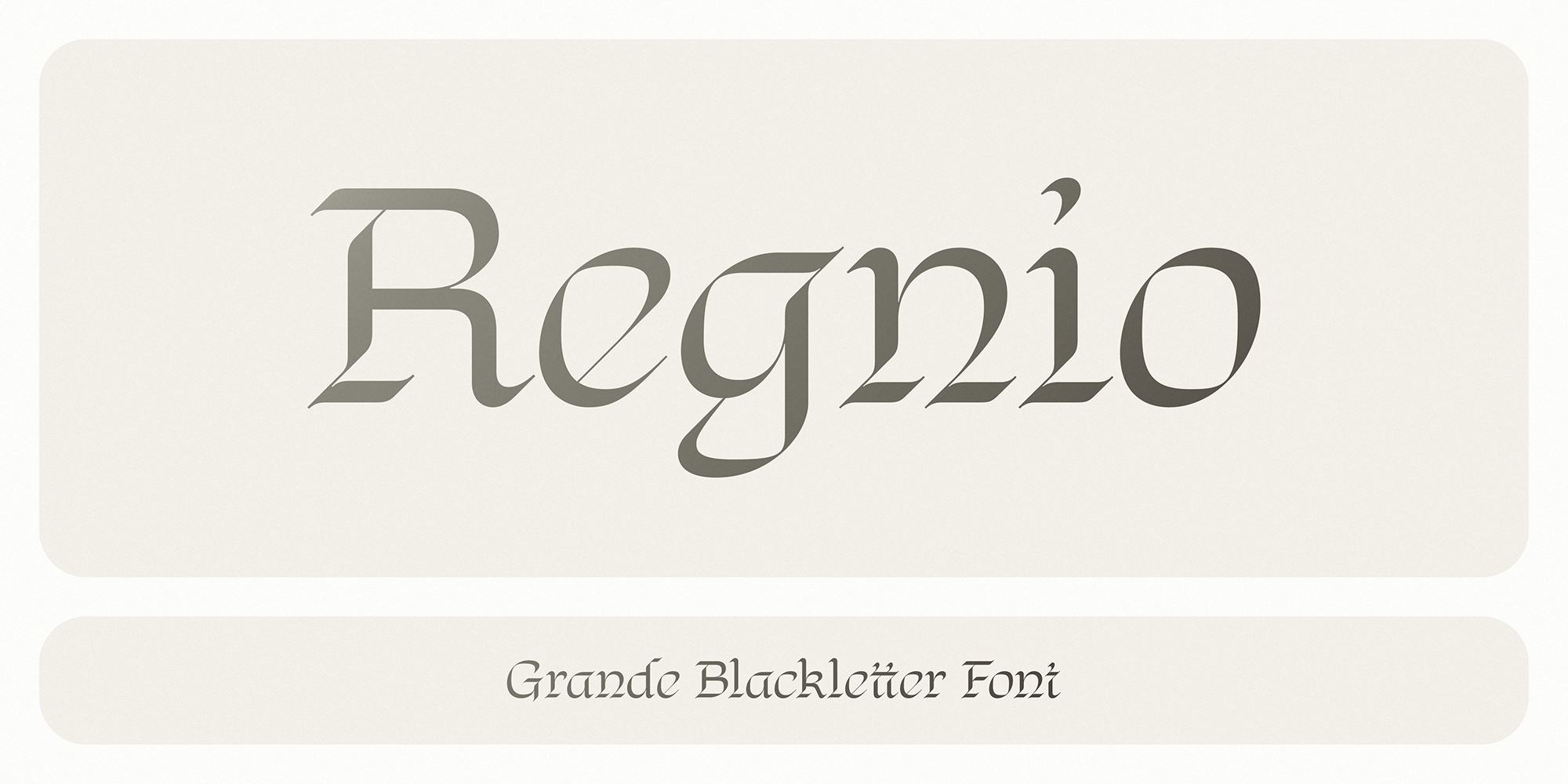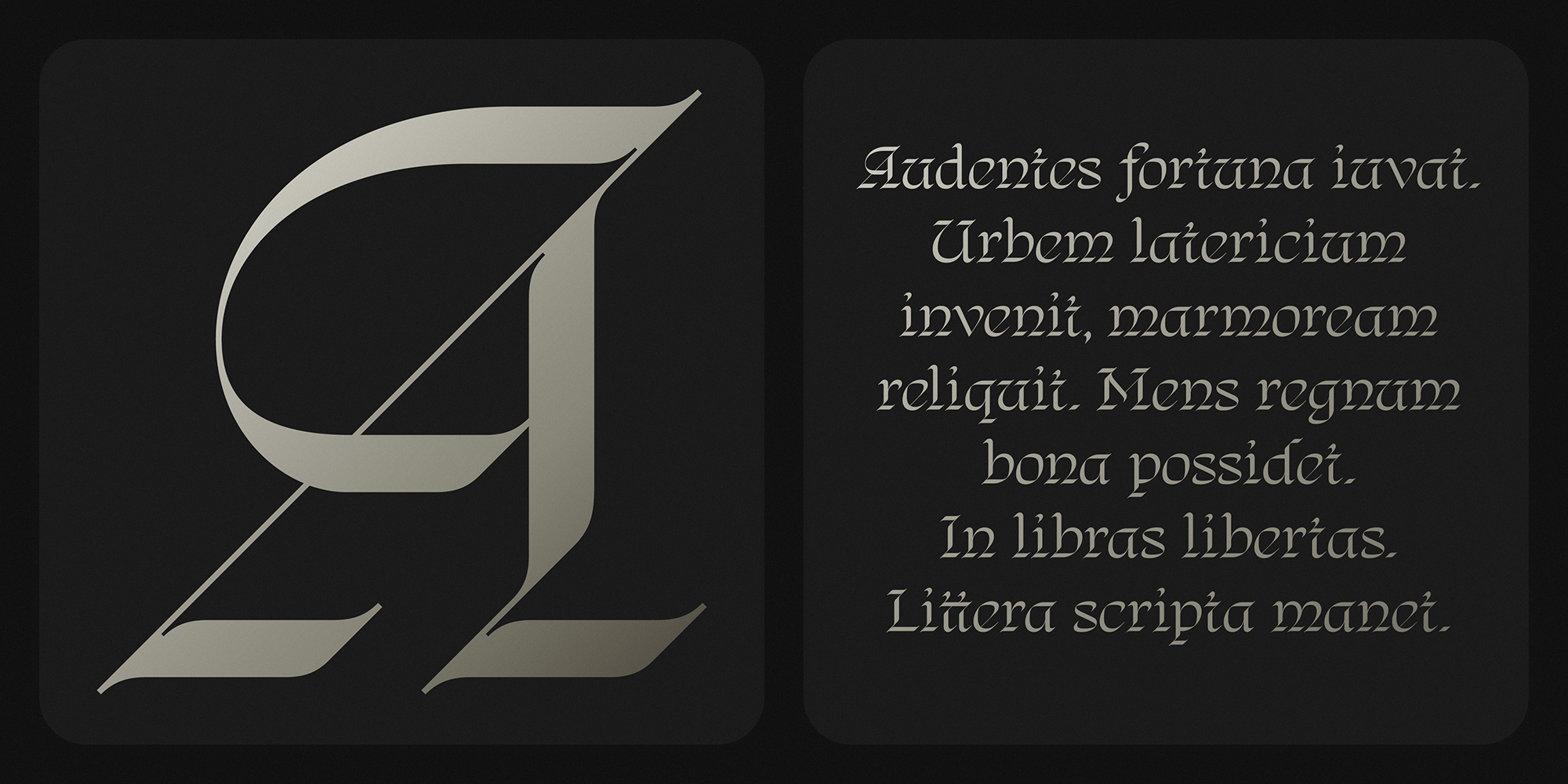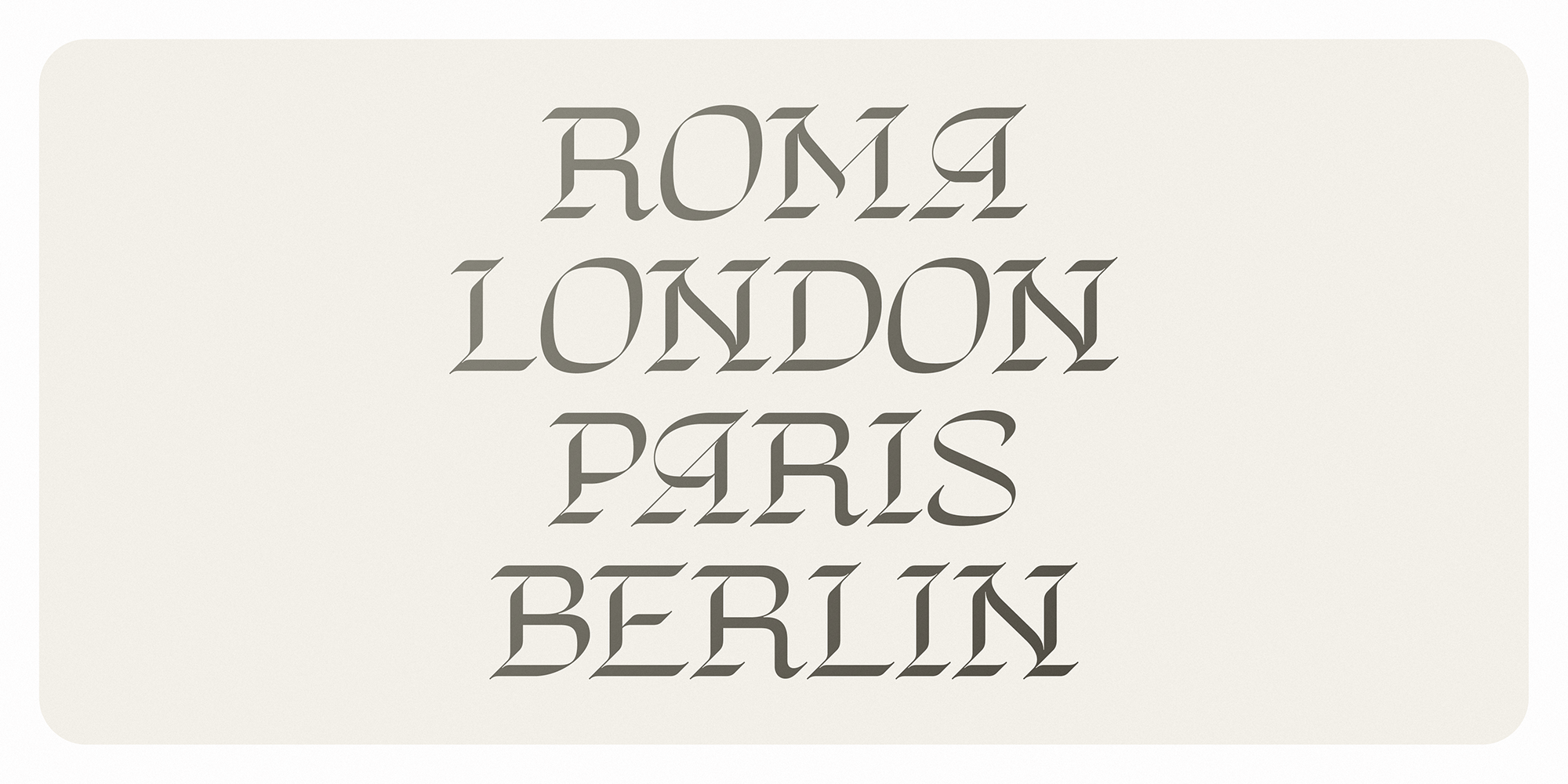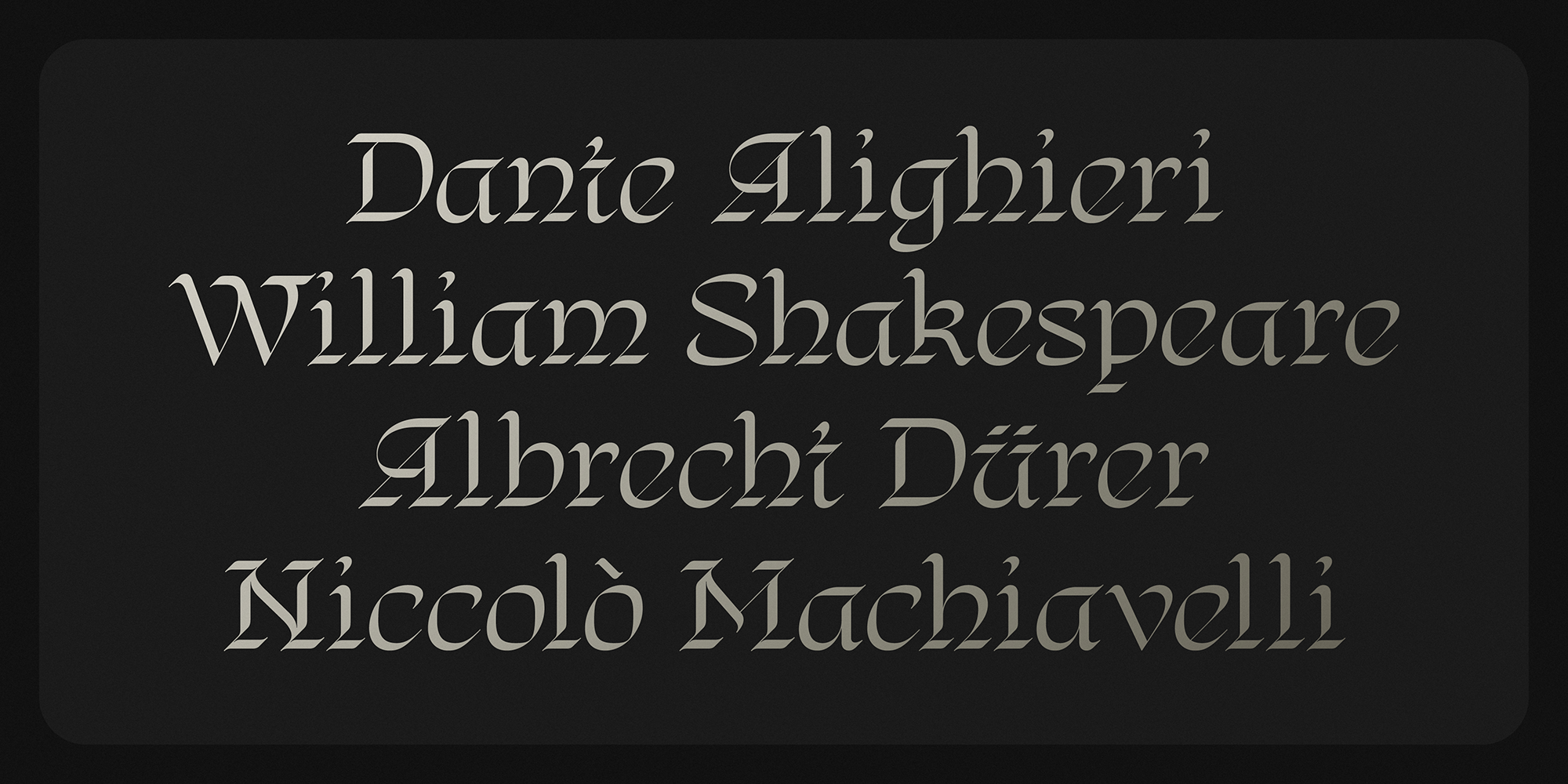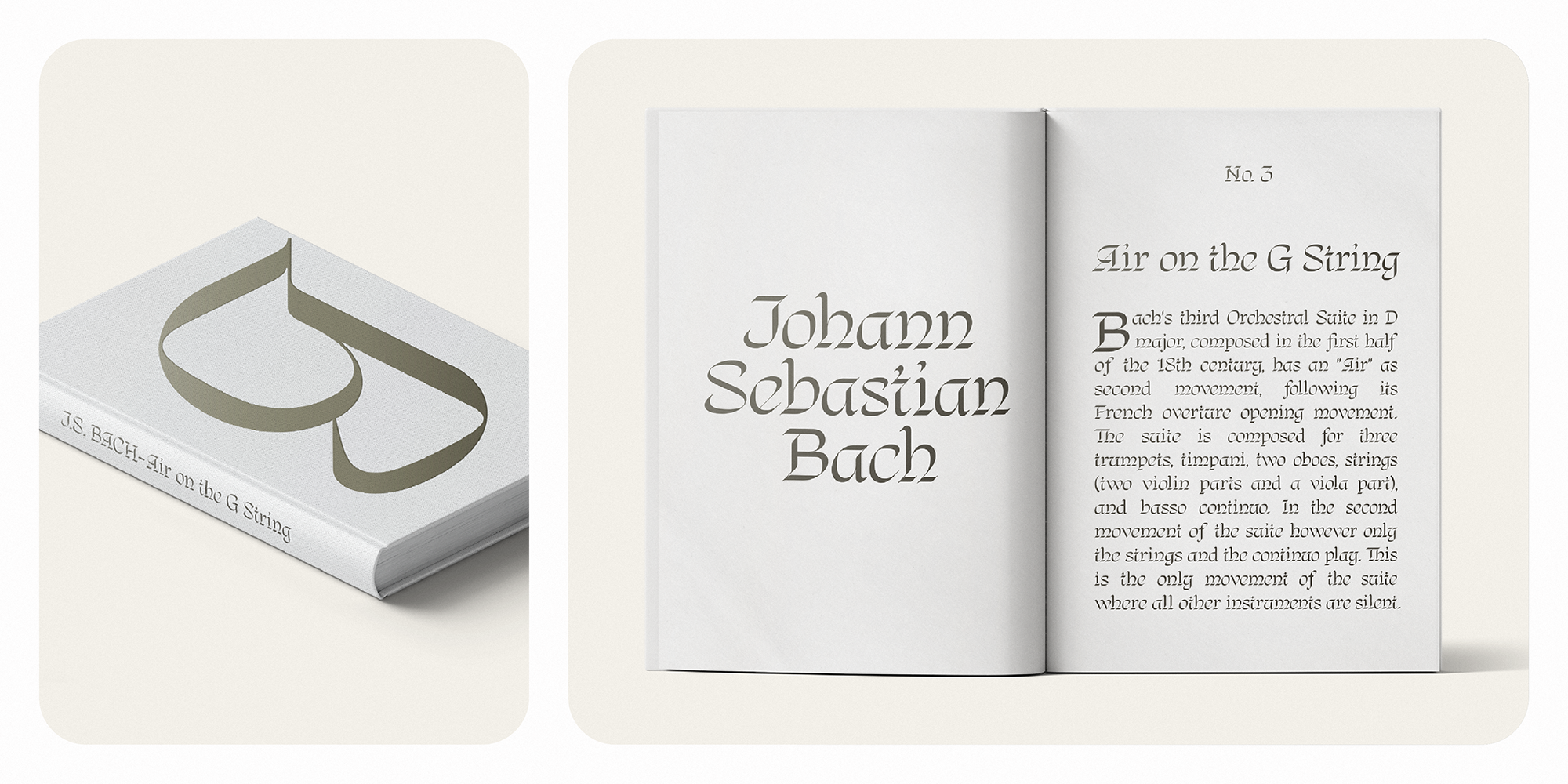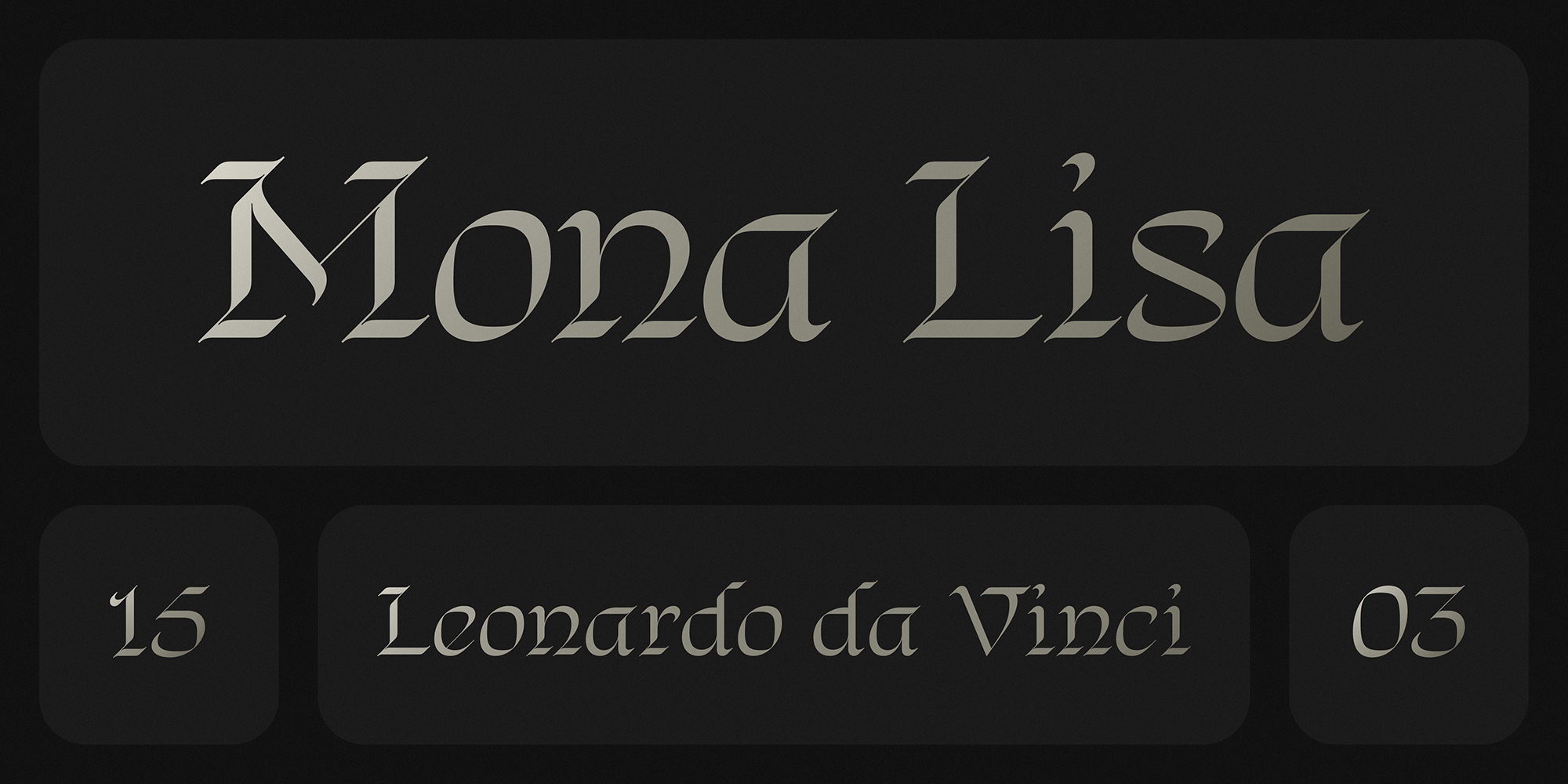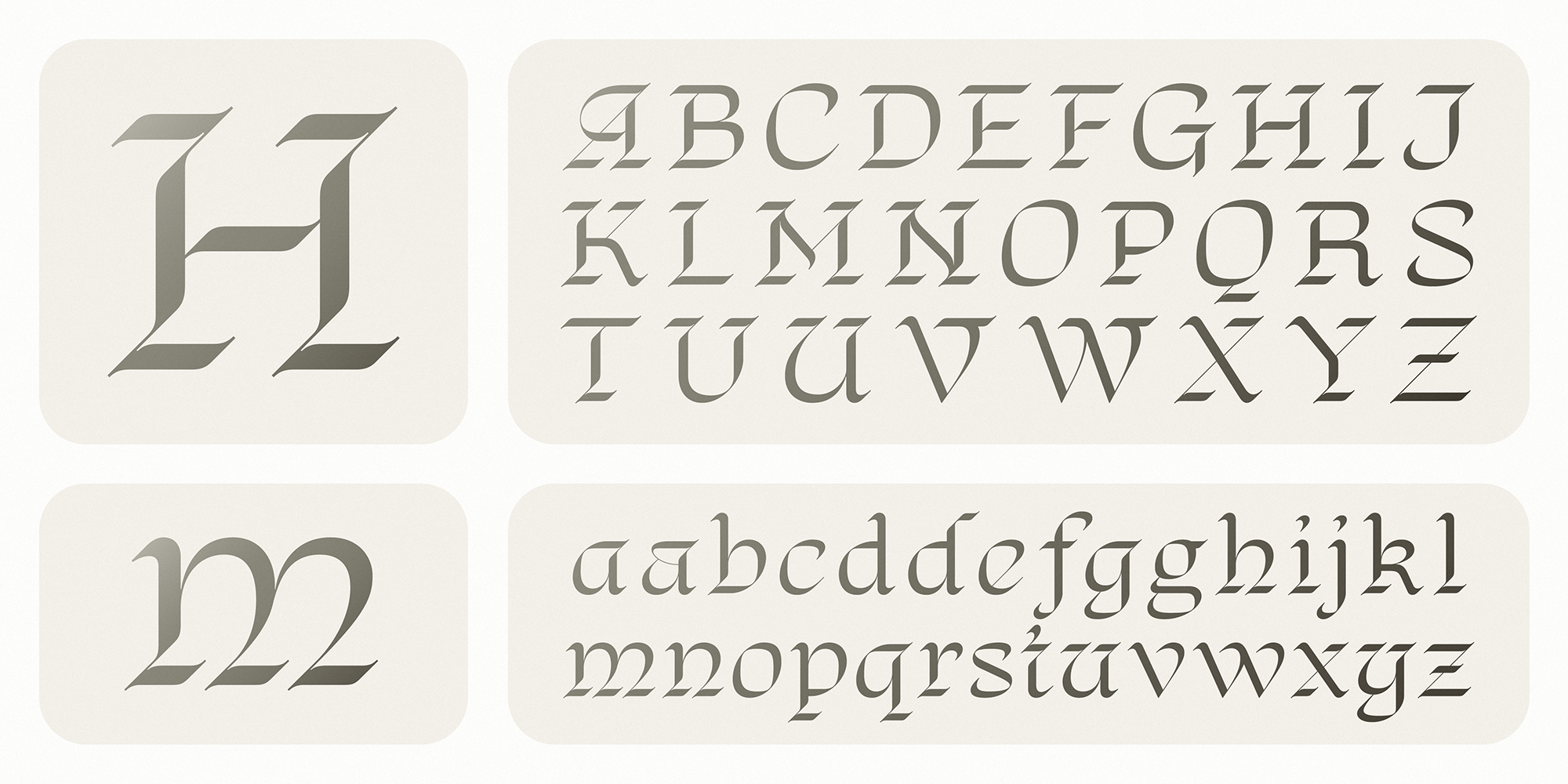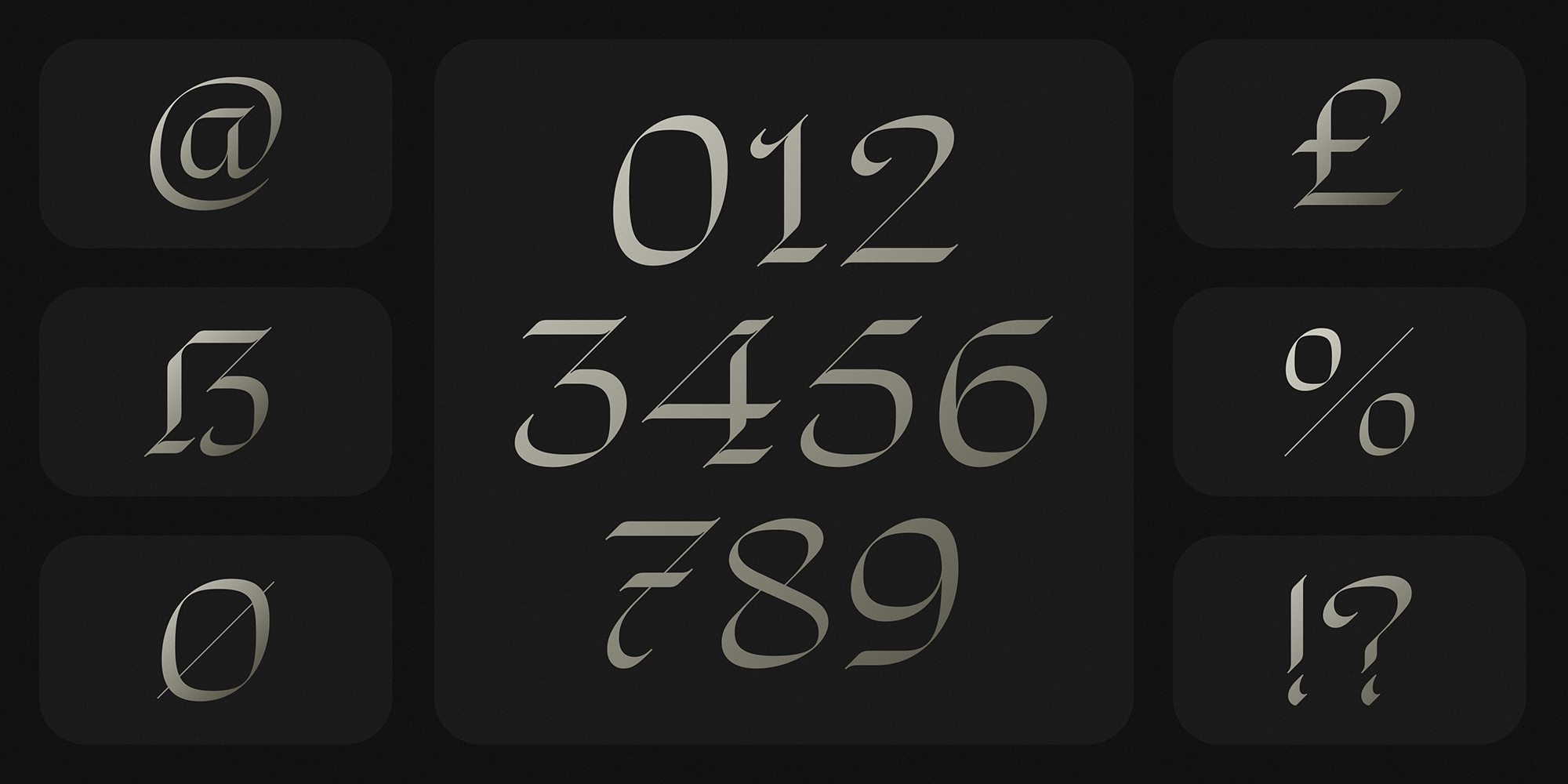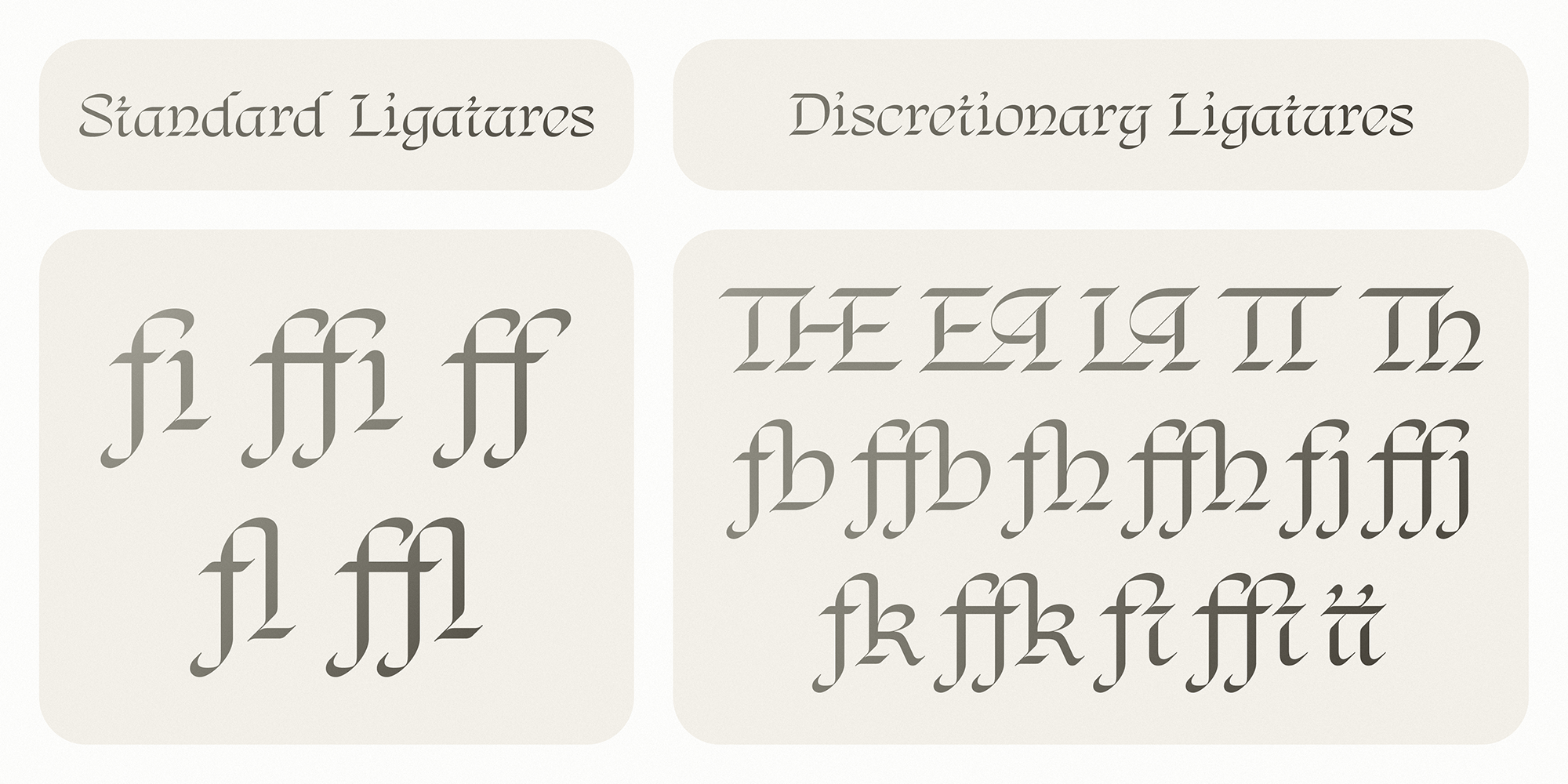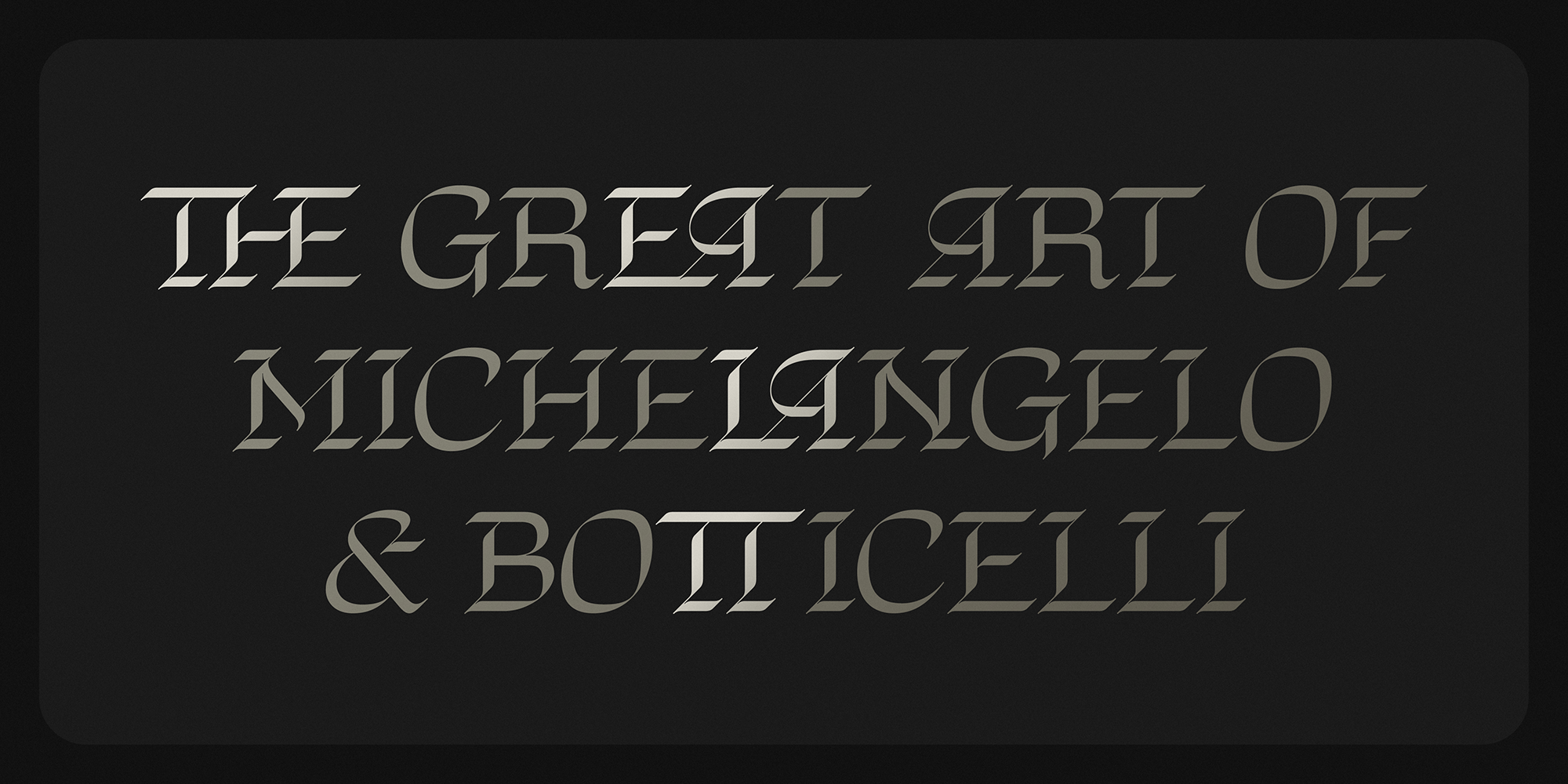
Regnio
Introducing Regnio, a modern interpretation of the beauty found in blackletter calligraphy masterpieces from the Renaissance era. With a simpler and more contemporary touch, this font is specially designed to meet the needs of design projects in today's modern situation.
Regnio exudes a sense of luxury, offering timeless and harmonious beauty that combines the grandeur of the past while still considering the visual needs of the present. Each stroke captures the essence of dynamic luxury, aiming to evoke a sense of grandeur, taste, and style.
Perfect for adding a touch of high-end beauty to a design, Regnio embraces the rich historical flavor and boundless grandeur of the Renaissance era, revived for the modern age in a work of art.
Standard Ligatures
fi
ffi
ff
fl
ffl
Discretionary Ligatures
THE
EA
LA
TT
Th
fb
ffb
fh
ffh
fj
ffj
fk
ffk
fr
ffr
tt
Stylistic Alternate
U
a
d
g